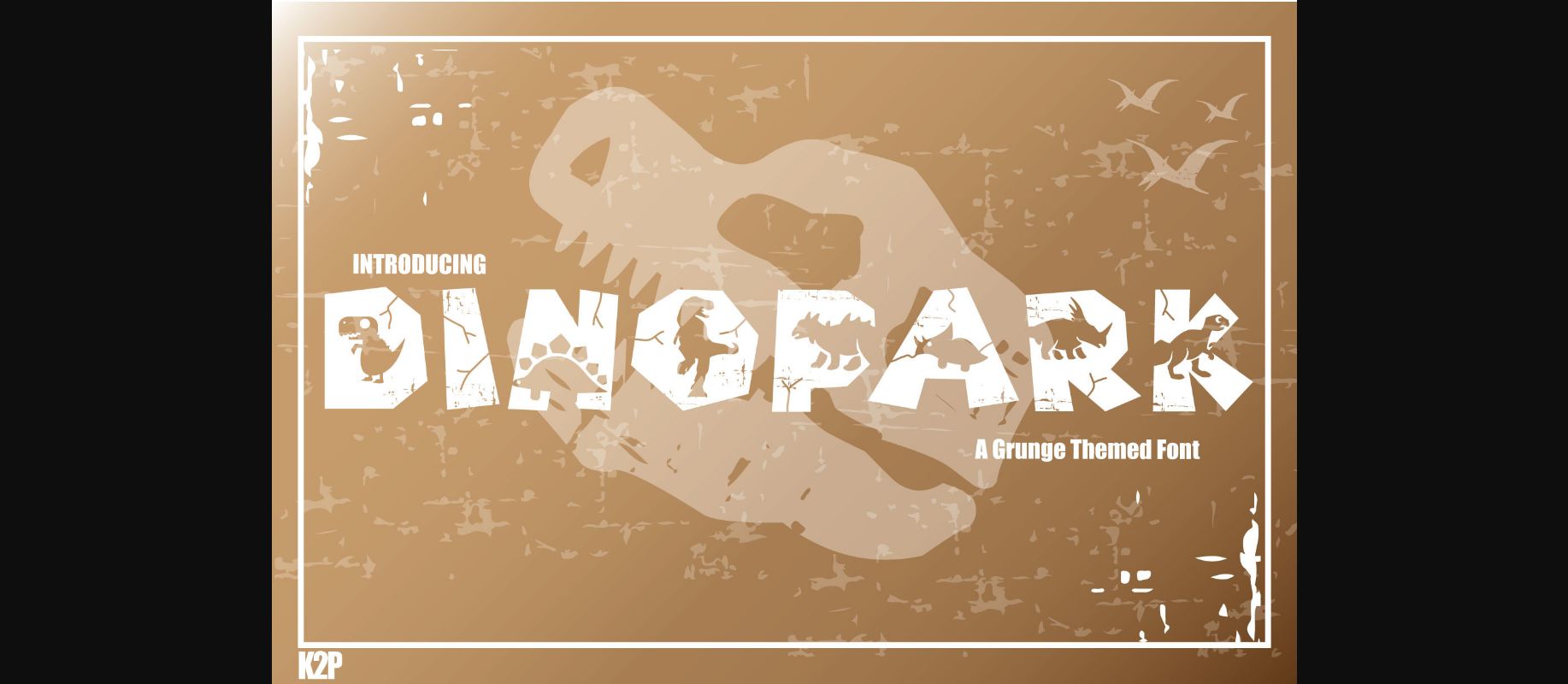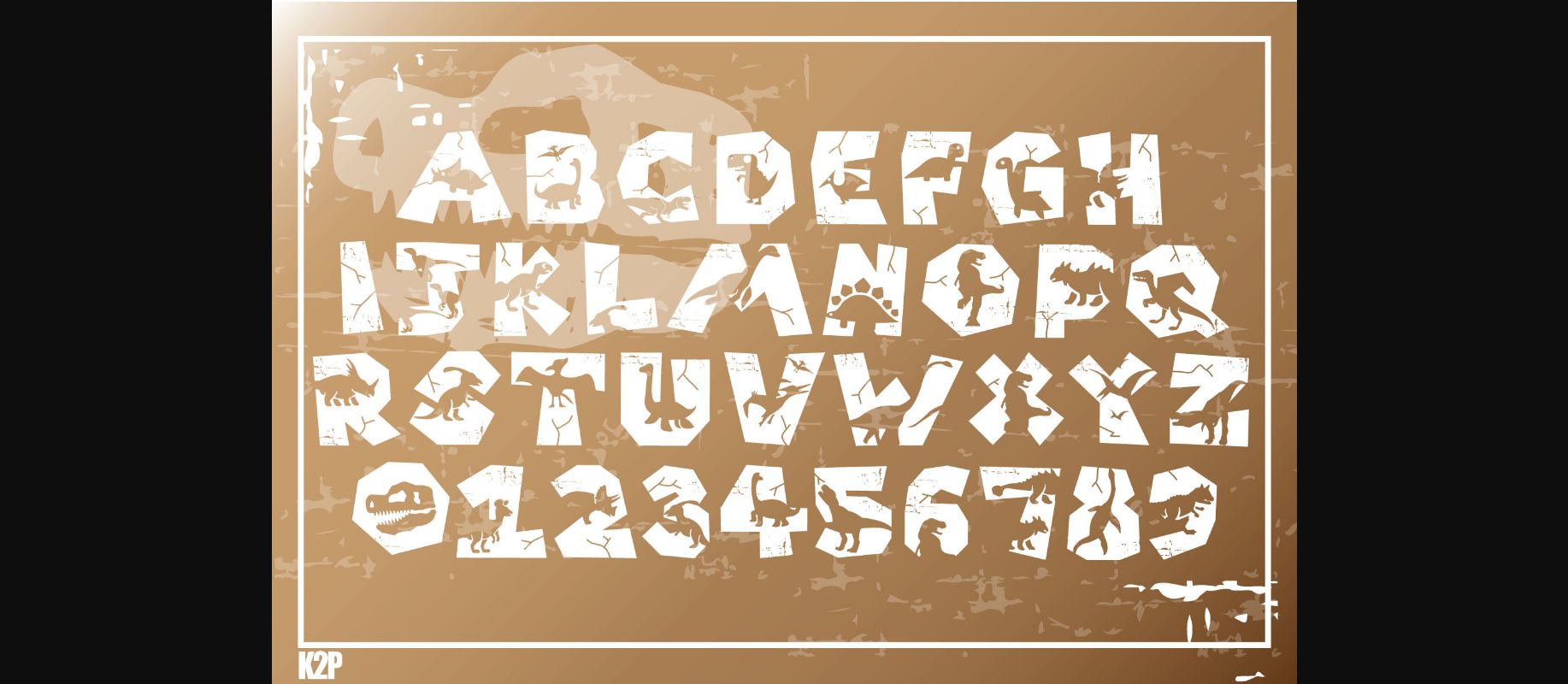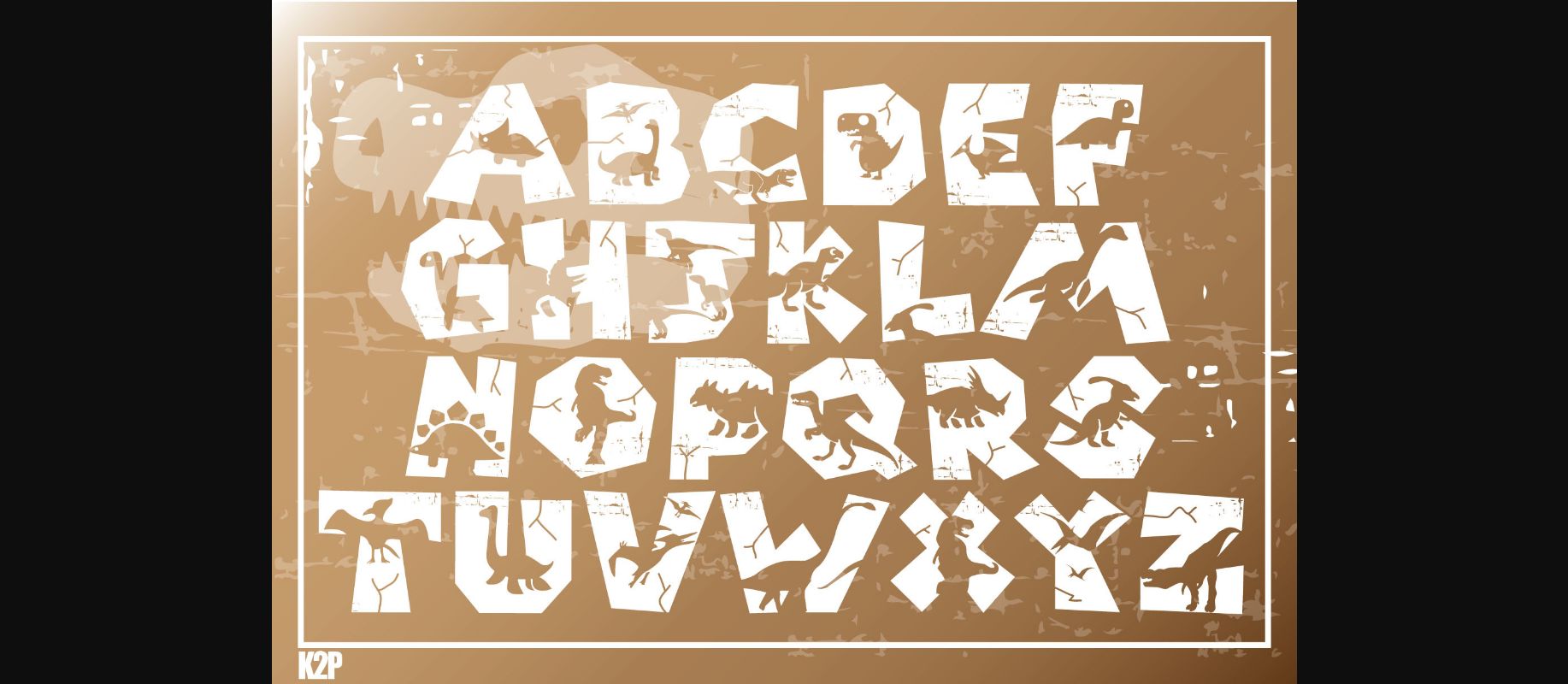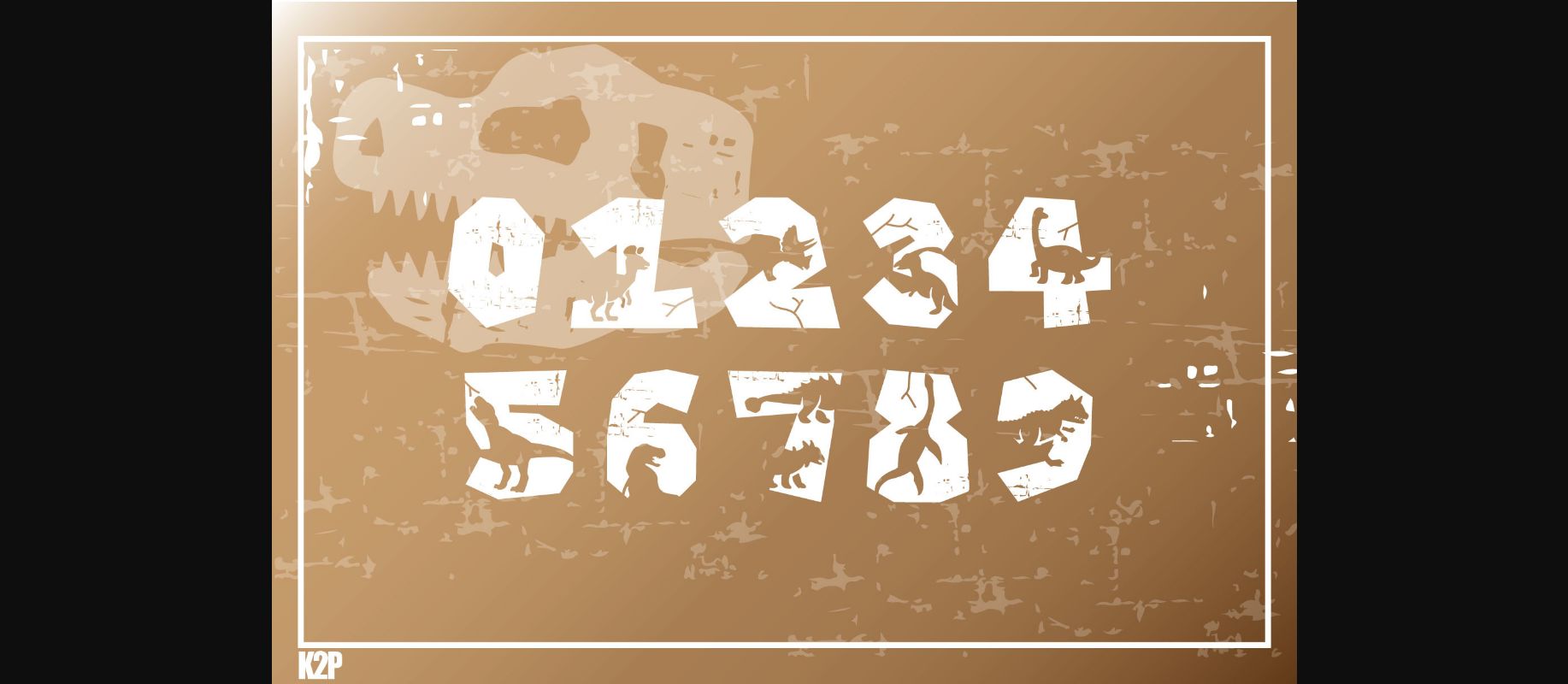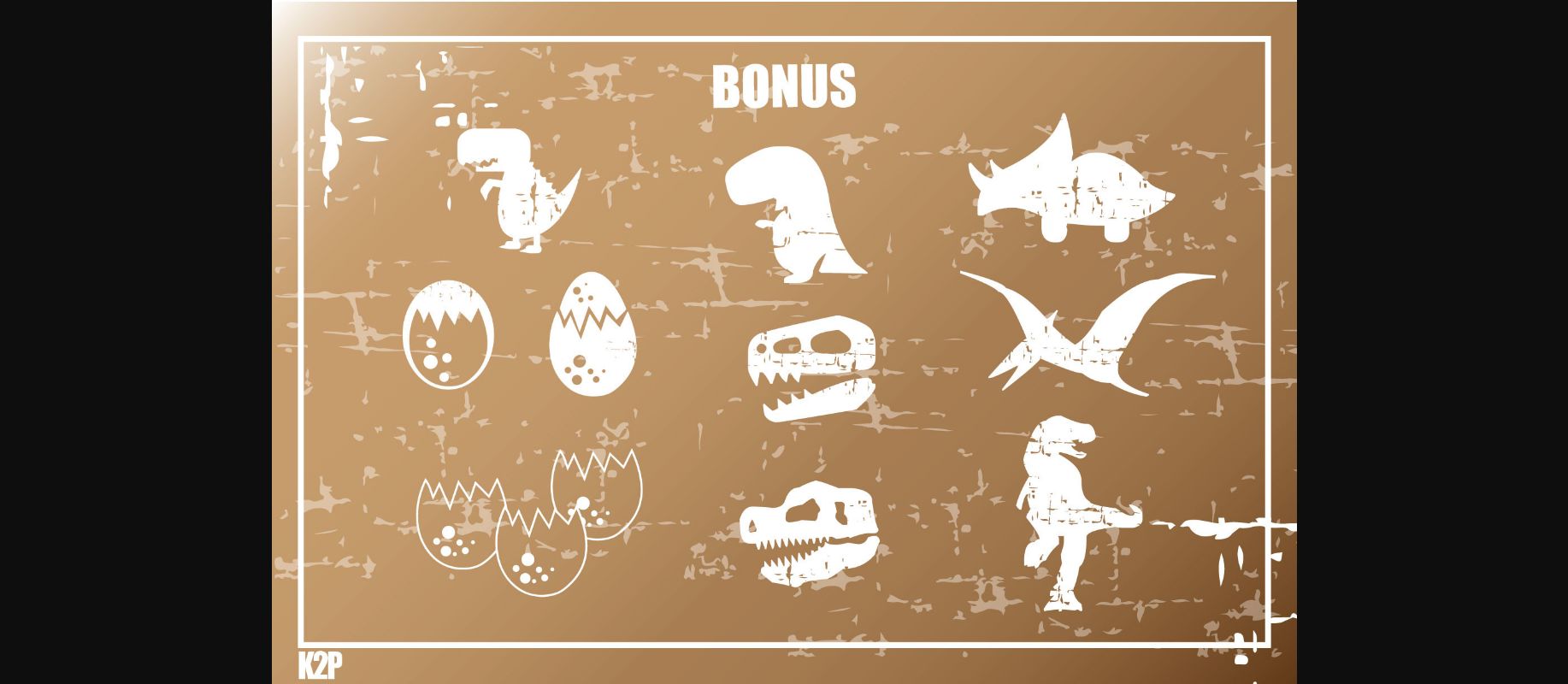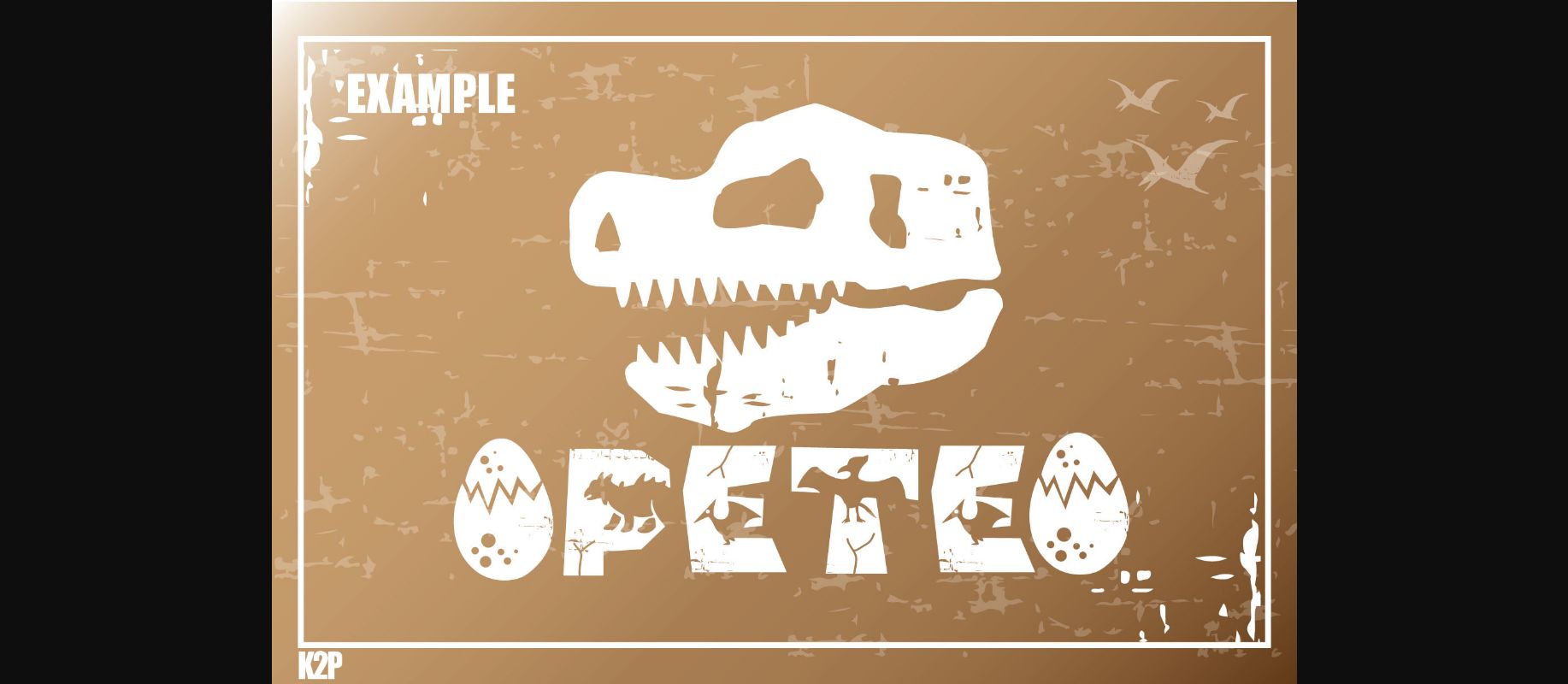
Dinopark Font
About Dinopark Font
Dinopark is a thick lettered and fun looking decorative font. It is perfect for children themed designs, especially when combined with bright colors. Dinopark is PUA encoded which means you can access all of the glyphs and swashes with ease!